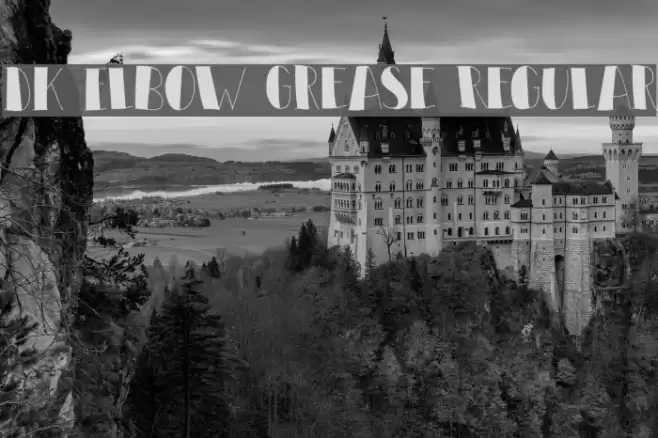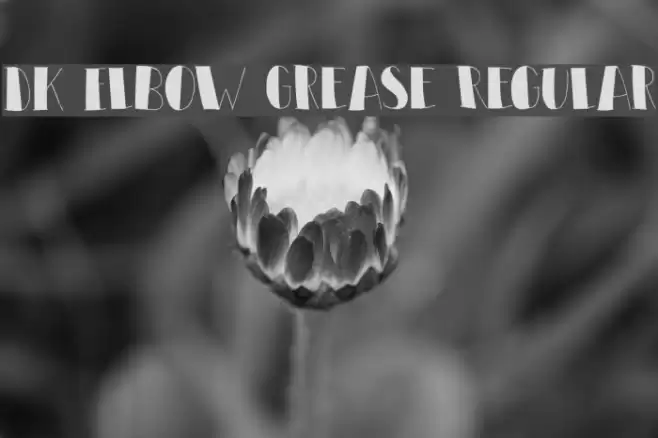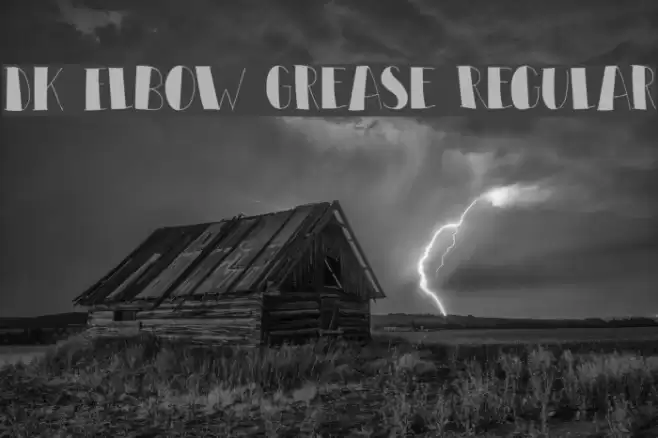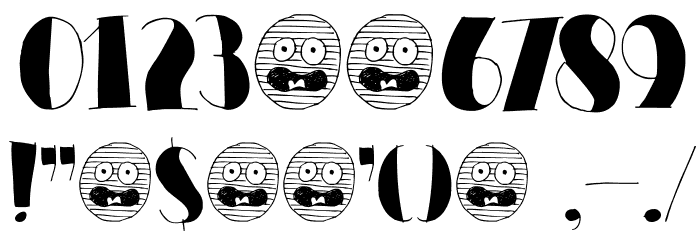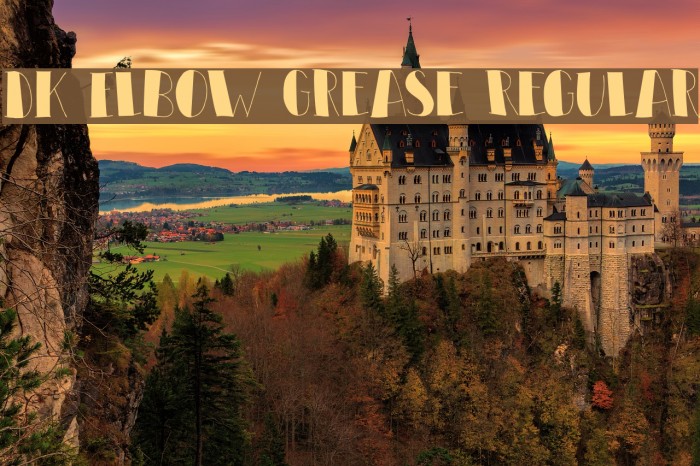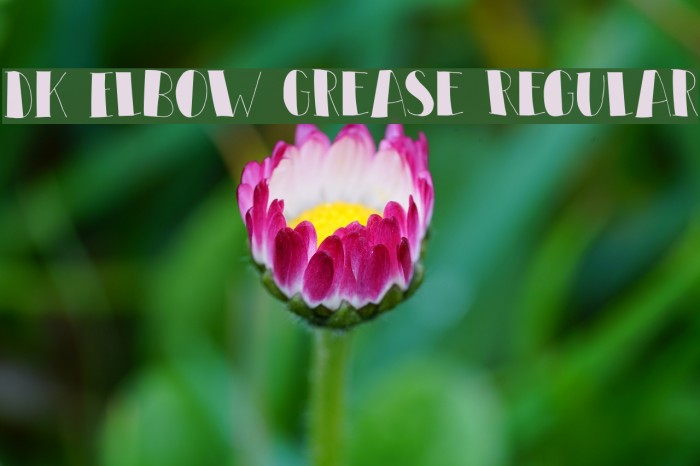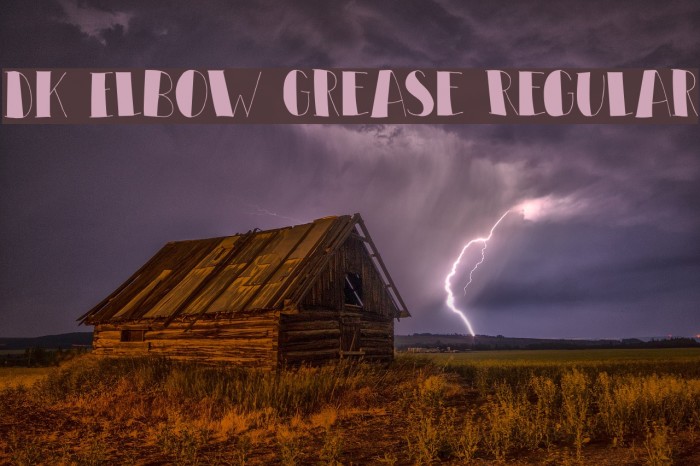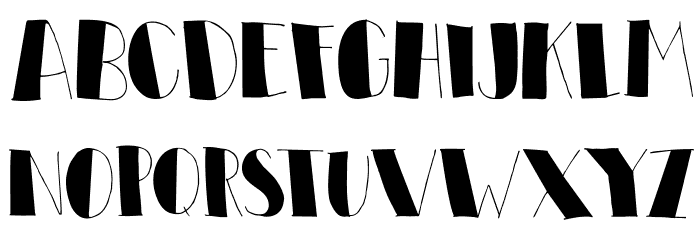
DK Elbow Grease Regular Font
DK Elbow Grease Regular Description
This font features a playful and quirky design with exaggerated, uneven strokes that give it a hand-drawn appearance. The letters have a whimsical, cartoonish style, with varying thicknesses and a slightly tilted orientation, adding to its dynamic and energetic feel. The numbers and special characters maintain the same playful aesthetic, with some characters featuring unique, expressive faces. This font is ideal for projects that require a fun and informal touch, making it suitable for children's books, comic strips, or playful branding.
A playful, hand-drawn font with quirky, uneven strokes and a whimsical style from Uncategorized fonts.
- Proposed Projects: Children's books, comic strips, playful branding, greeting cards, and informal invitations.
- Overall Style: Playful, Quirky, Hand-drawn
- Use Case: Headlines, Logos, Informal Text